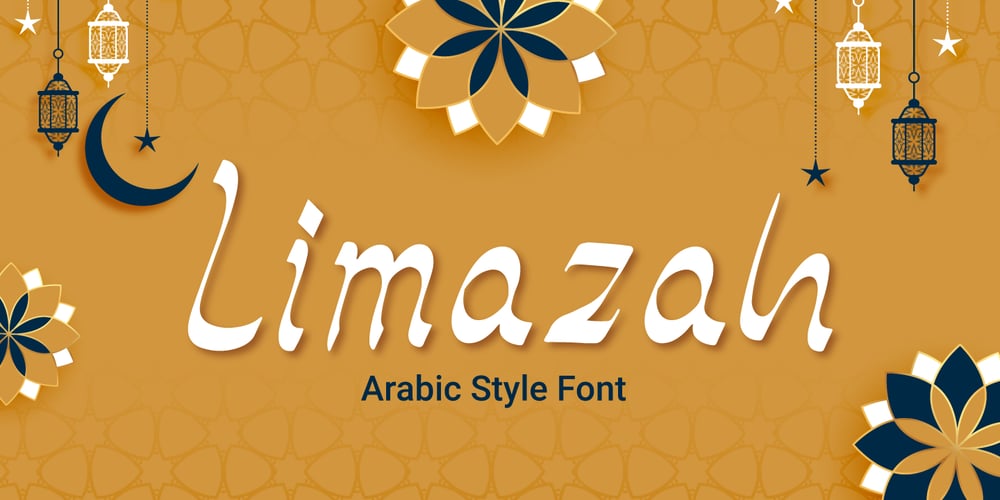
Limazah Font Family was designed by Fadli Ramadhan Iskandar and published by Attype Studio. Limazah contains 1 styles and family package options. Limazah is an Arabic style font that is perfect for any Muslim project or product. This font has a beautiful, elegant design that is inspired by traditional Arabic calligraphy. It is perfect for use in Ramadan themed designs, as well as any other design that requires a touch of Arabic flair. This digital product font is easy to use in any design software. It is perfect for creating stunning, professional designs that will stand out and make a statement. Whether you are designing for a business or personal project, Limazah is a must-have font for any designer.Features :- Limazah Font- Ligatures- Multilingual, US Roman, Latin 1 Support —This Font Support Language:Afrikaans, Albanian,Asu, Basque, Bemba, Bena, Breton, Catalan, Chiga, Cornish, Danish, Dutch, English, Estonian, Faroese, Filipino, Finnish, French, Friulian, Galician, German, Gusii, Indonesian, Irish, Italian, Kabuverdianu, Kalenjin, Kinyarwanda, Luo, Luxembourgish, Luyia, Machame, Makhuwa-Meetto, Makonde, Malagasy, ManxMorisyen, North Ndebele, Norwegian Bokmål, Norwegian Nynorsk, Nyankole, Oromo, Portuguese, Quechua, Romansh, Rombo, Rundi, Rwa, Samburu, Sango, Sangu, Scottish Gaelic, Sena, Shambala, Shona, Soga, Somali, Spanish, Swahili, Swedish, Swiss German, Taita, Teso, Uzbek (Latin), Volapük, Vunjo, Zulu,Thank you for purchasing premium fonts from Attype Studio. Follow and explore our work on Pinterest & Instagram. If you have any question, don’t hesitate to contact us.Hope you enjoy with our font!Attype Studio